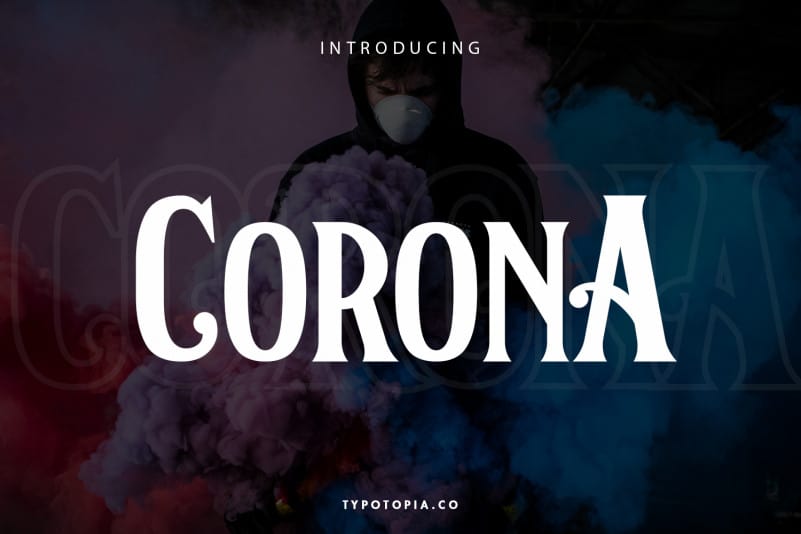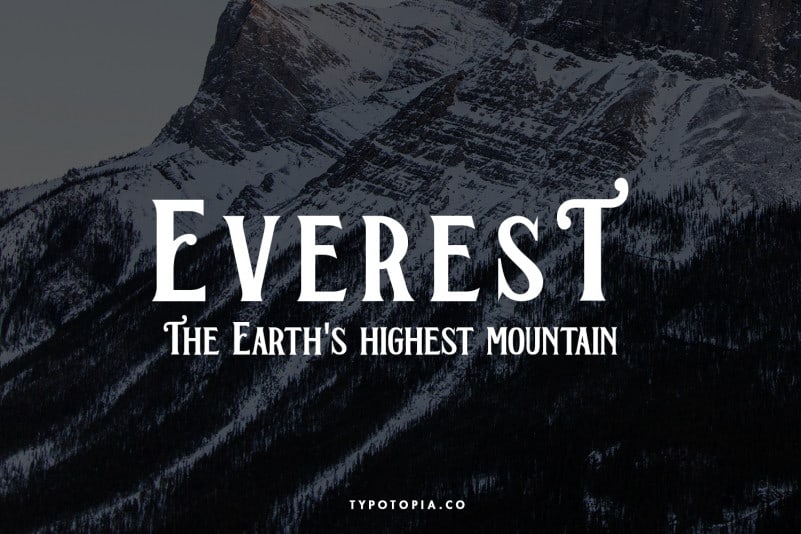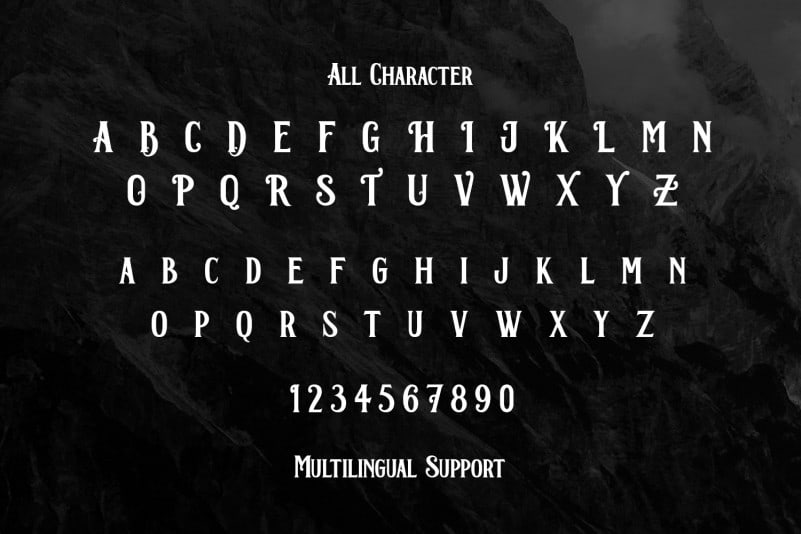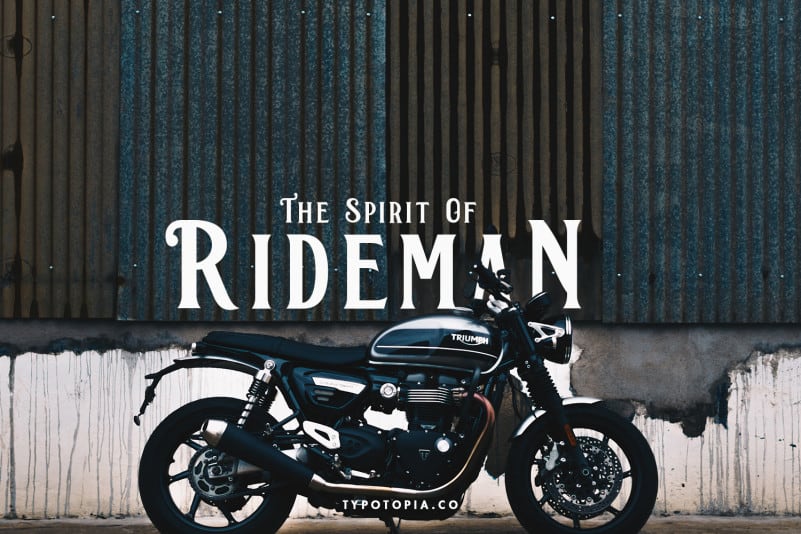
Corona Serif Font
Introducing, Corona Serif Font, a lovely Display Font that bring Natural feel. this Font that inspired by lettering from the good old past, but it still has a strong Classic or Medival appearance.
Corona Serif Font is the great choice for several purpose, it suitable for for headline, logotype, apparel, invitation, branding, packaging, advertising etc.